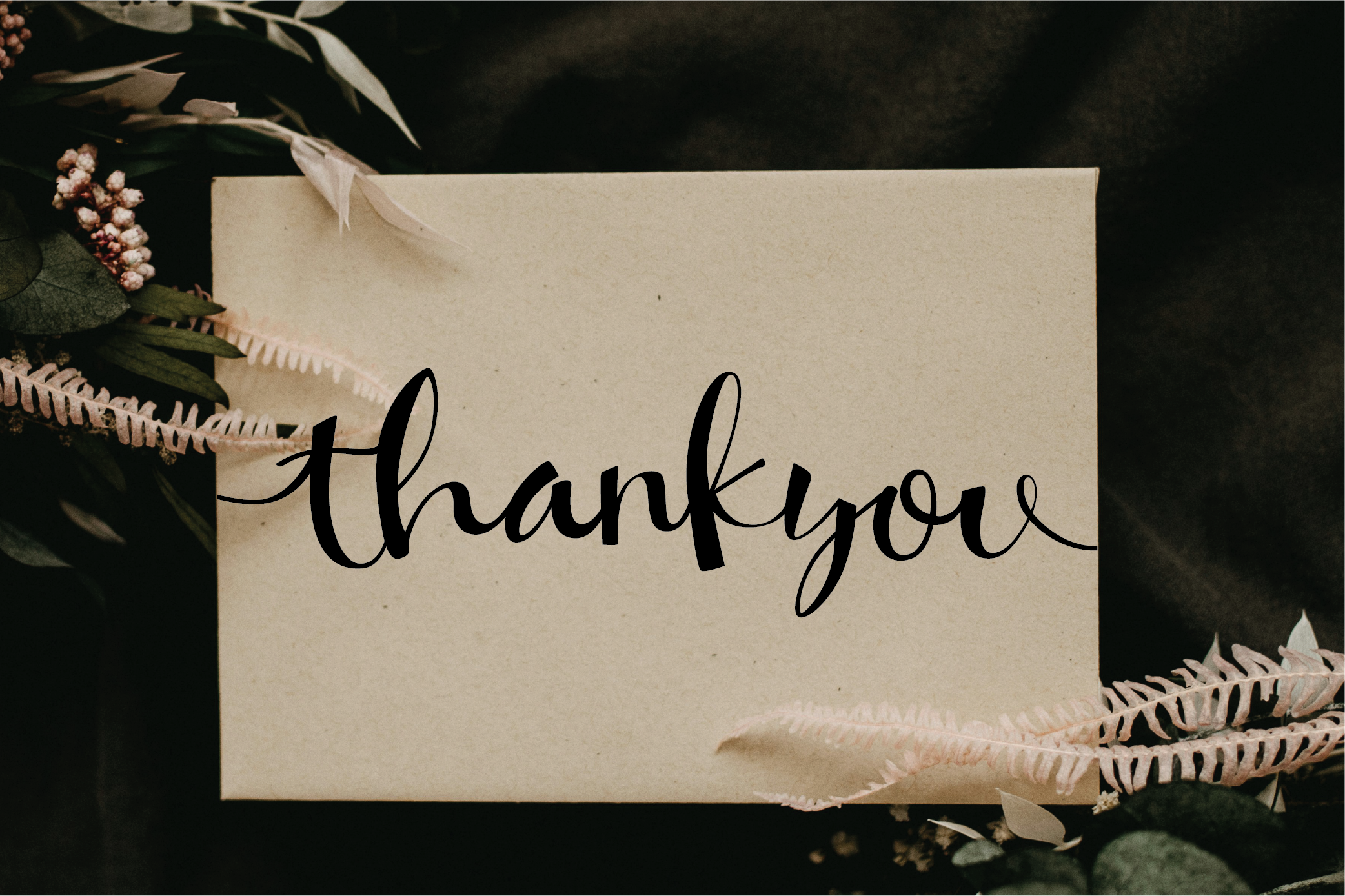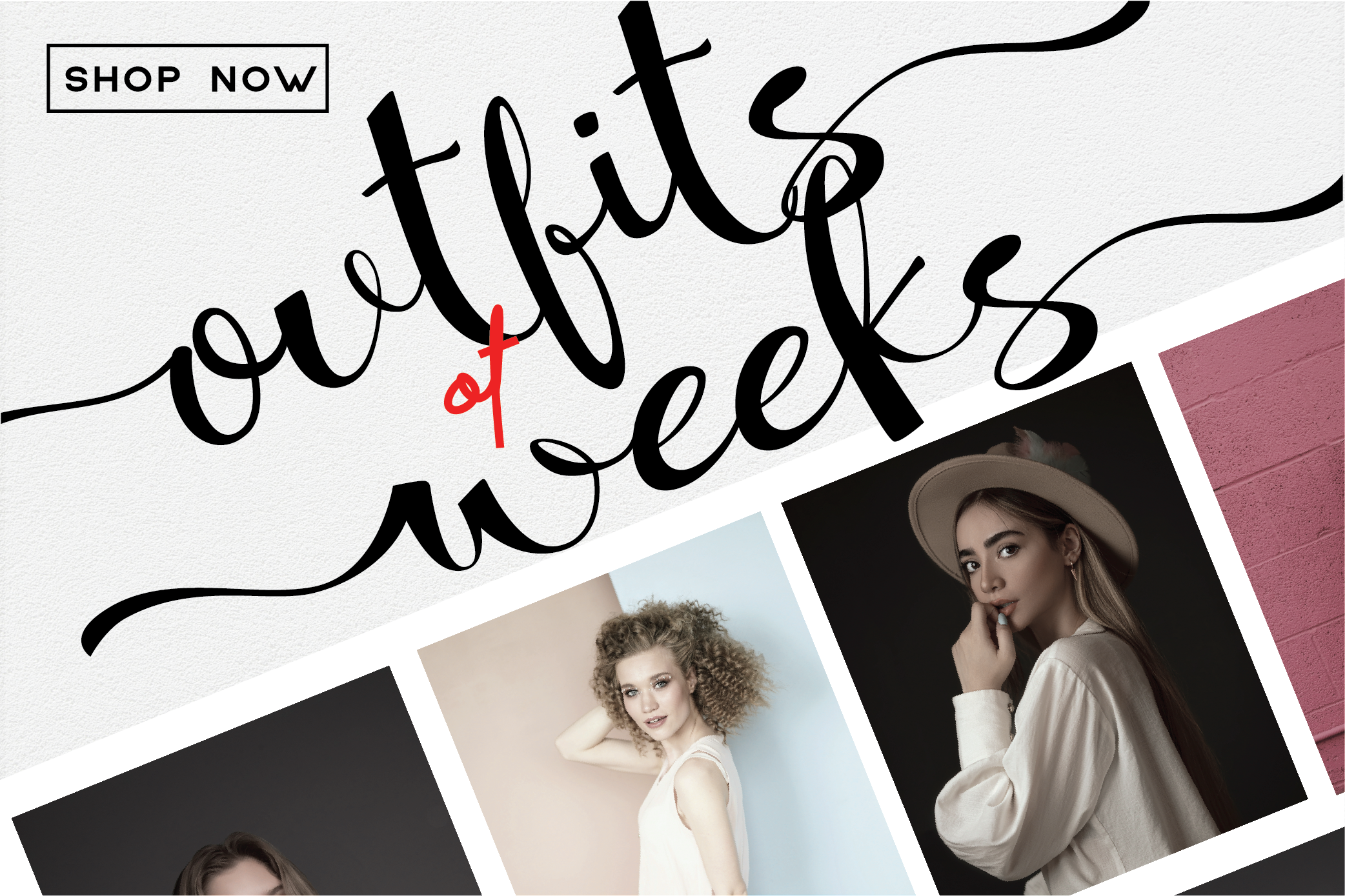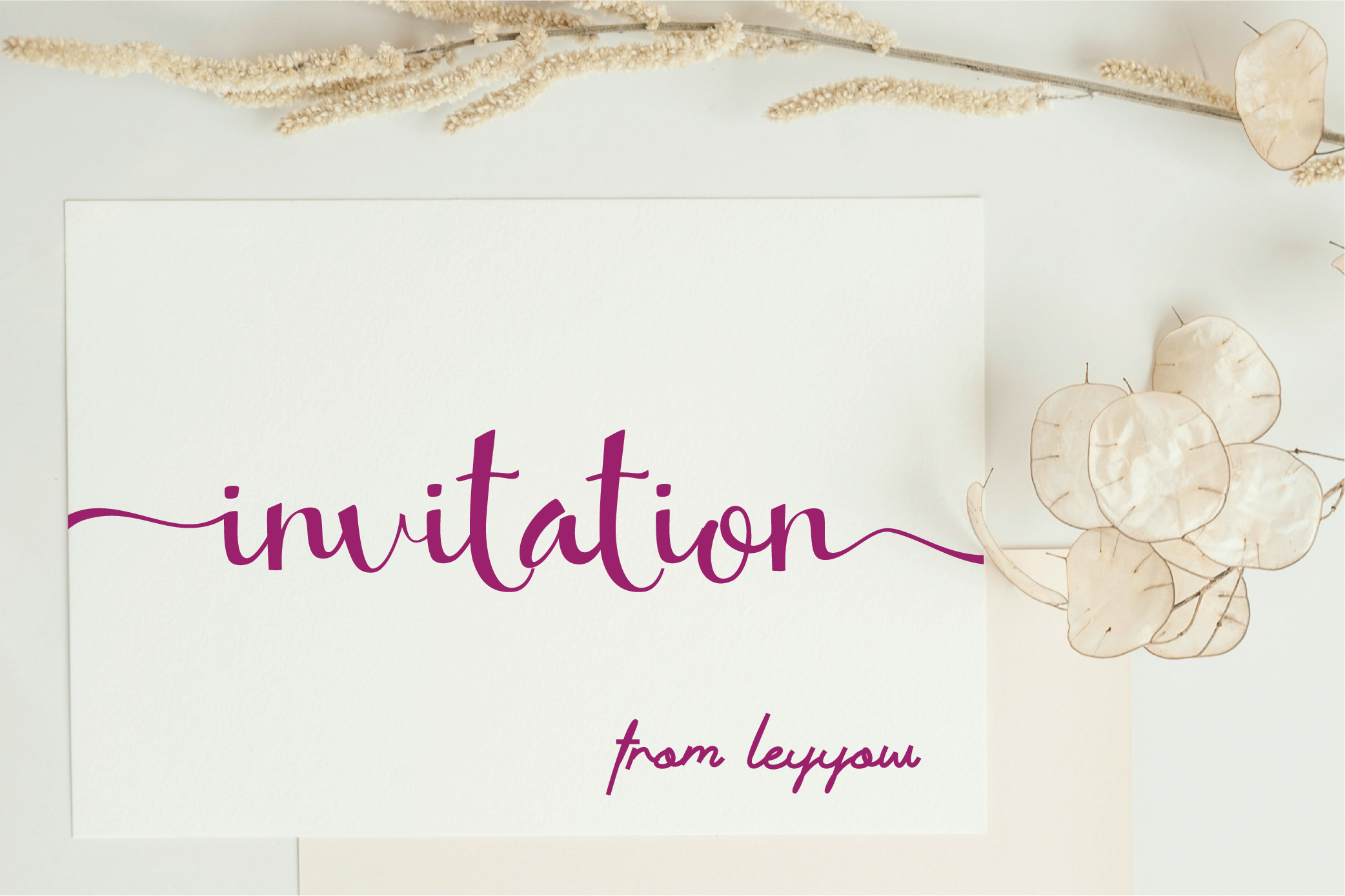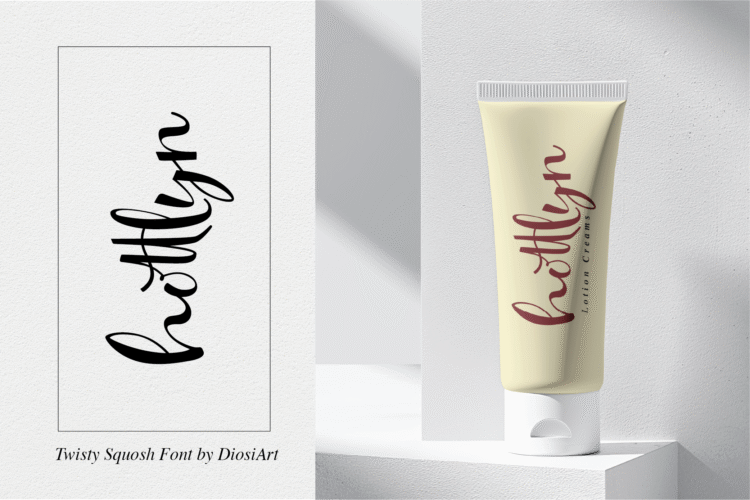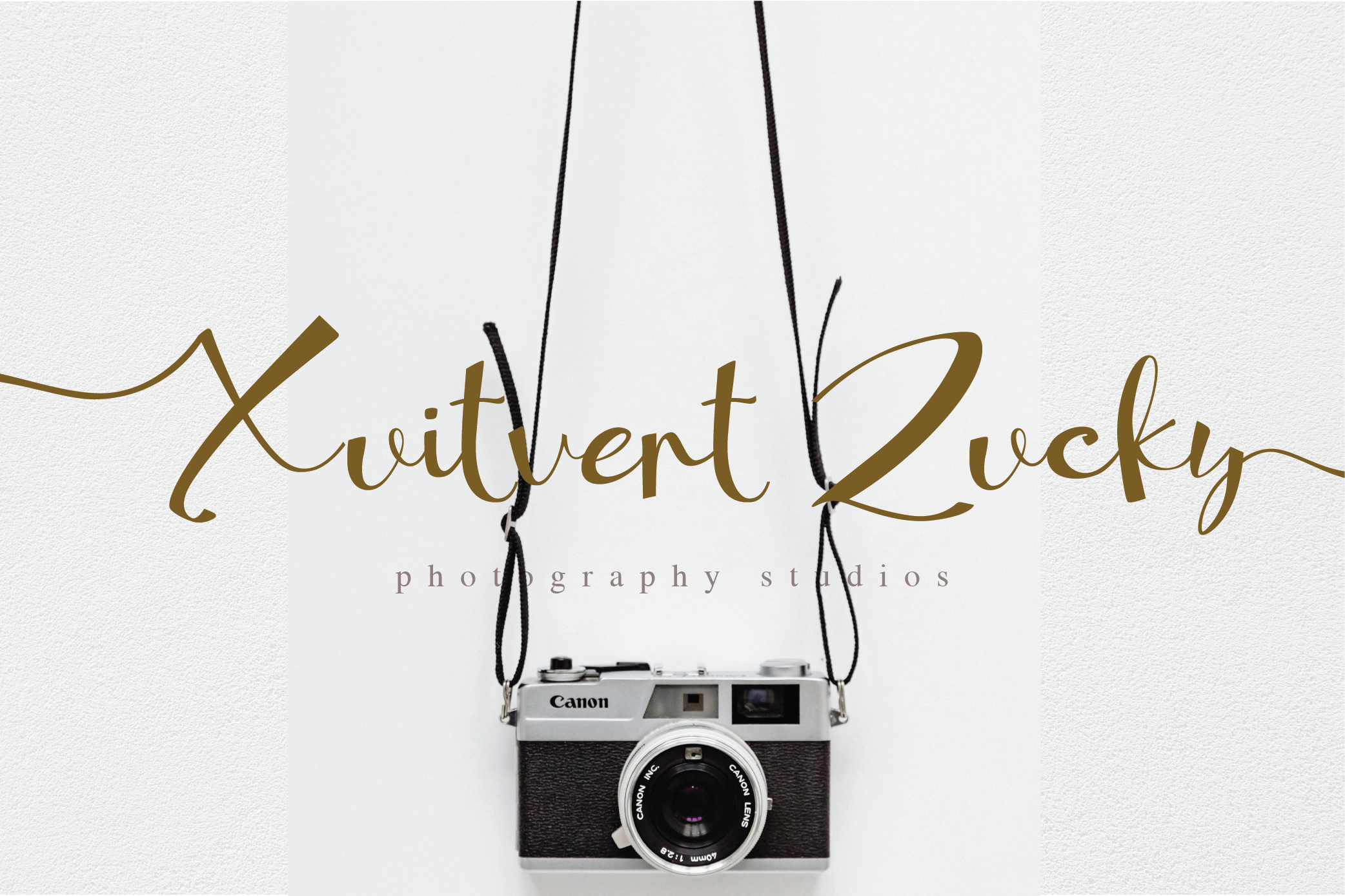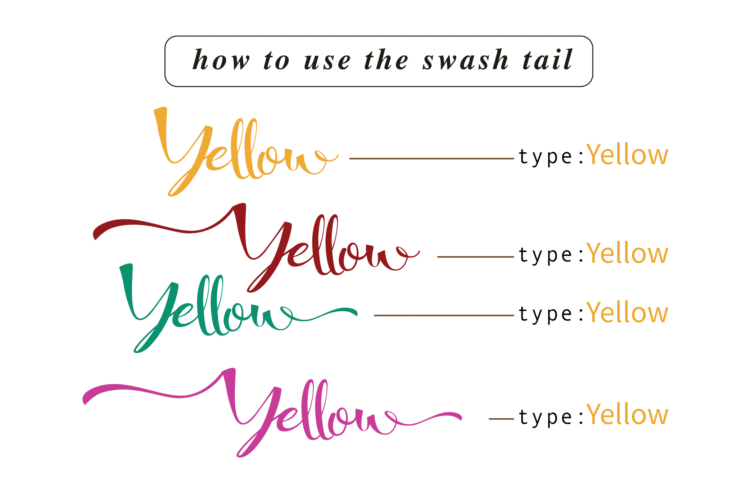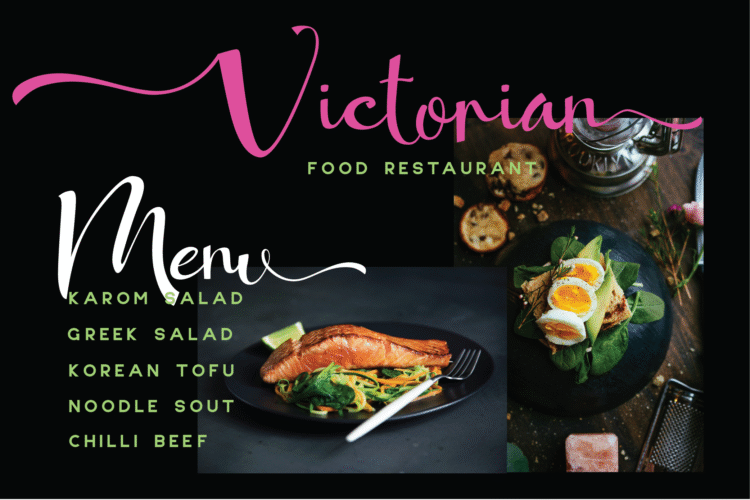
twisty squosh | happy script font
Twisty Squosh is professional modern handwriting font with the characteristic of twisty style and has swash and tails glyphs . Designed for high-end branding and project needs. This font the essence of modern minimalism while maintaining a sense of luxury and refinement.
Whether you are crafting a corporate identity, designing sleek business cards, or editorial content, this font ensures your work exudes professionalism and style.
Ideal for branding, business logo, headline, websites, and more. Twisty Squosh refine your design effortlessly and elevates the project. Helps you communicate a refined, modern aesthetic that leaves a lasting impression.